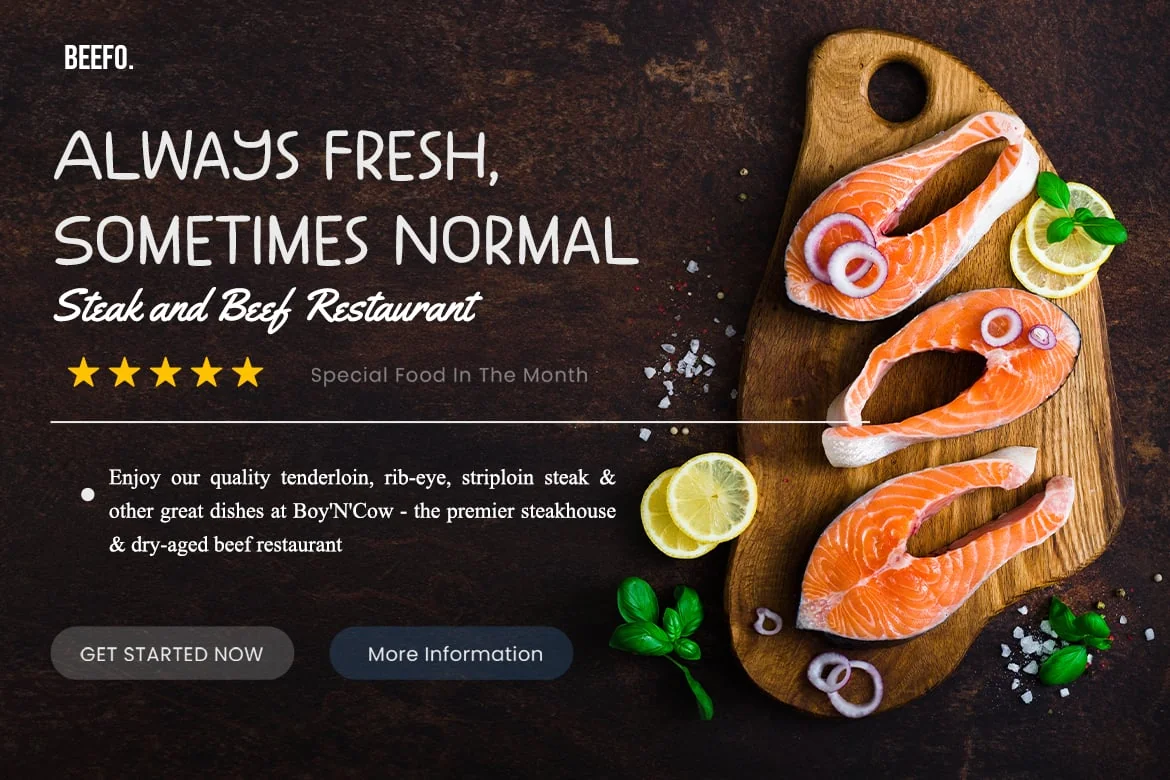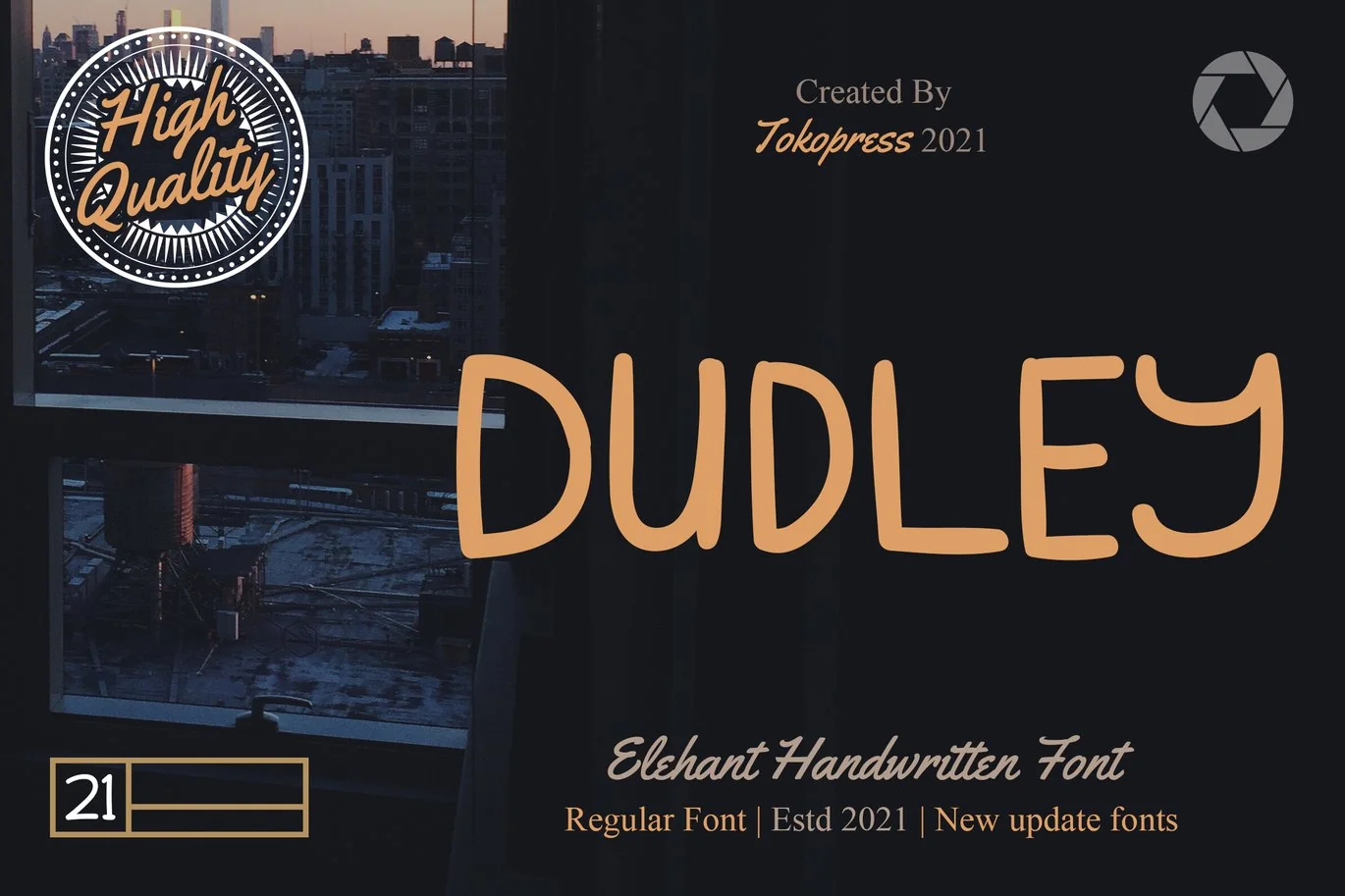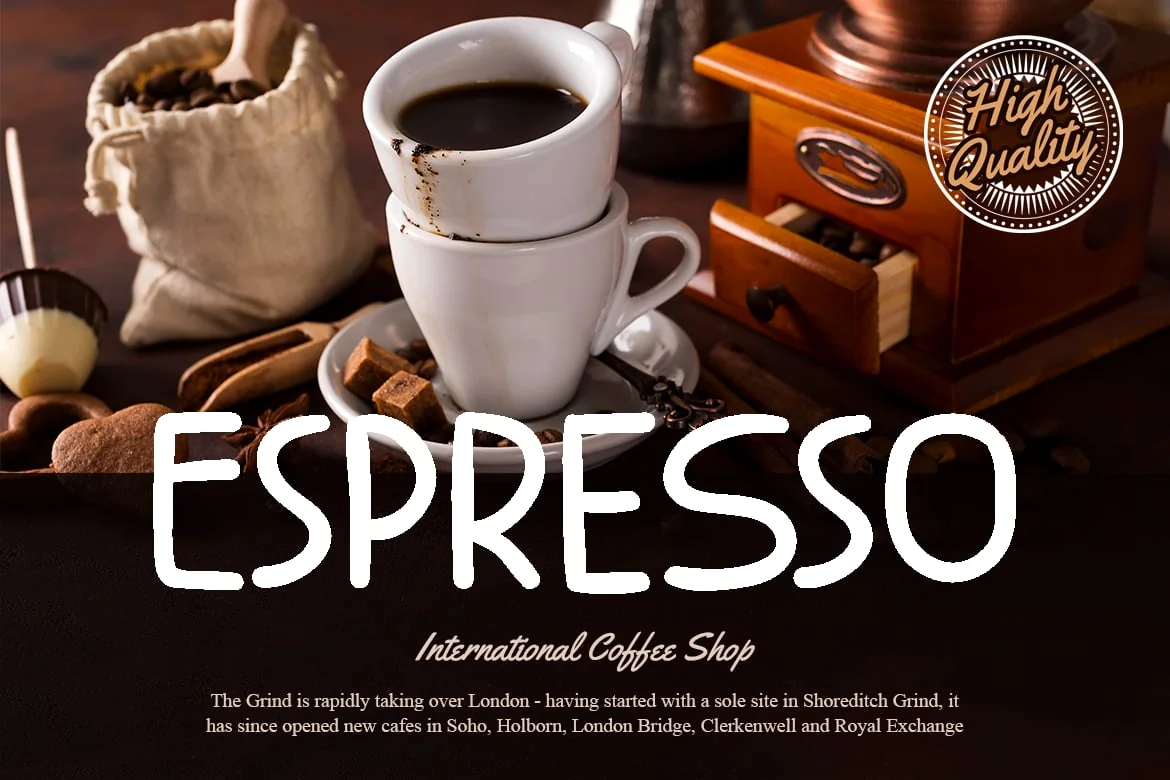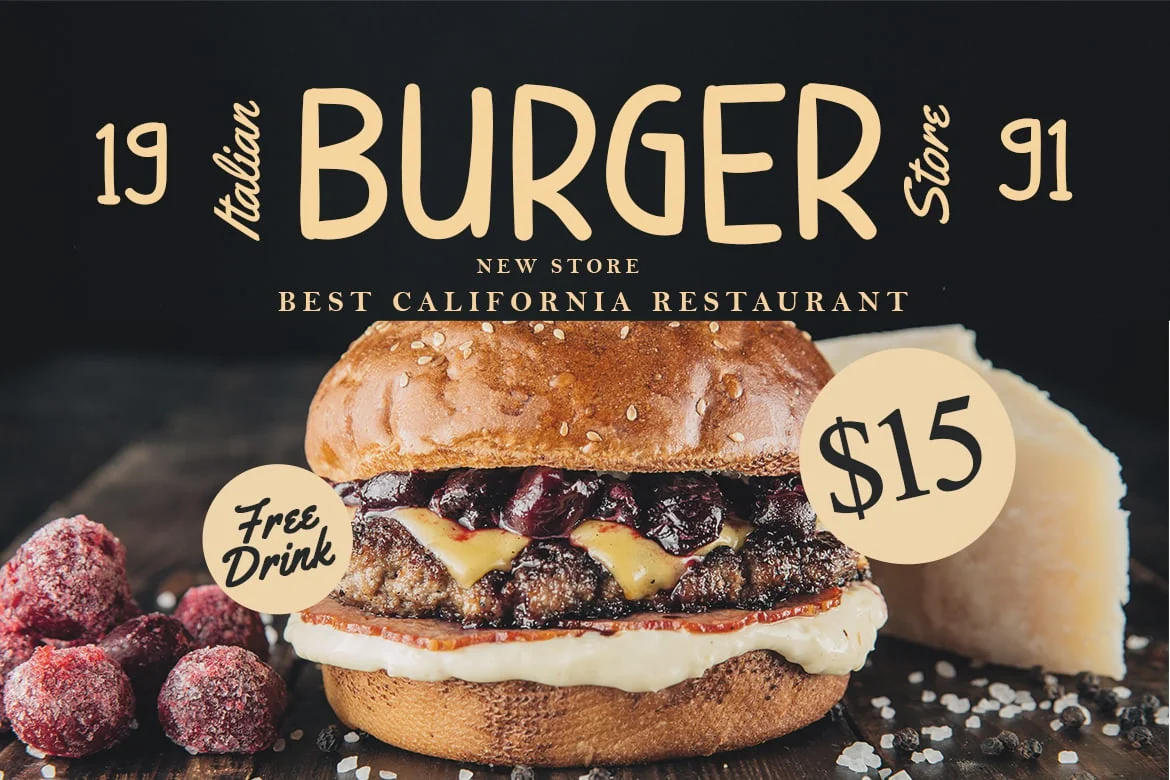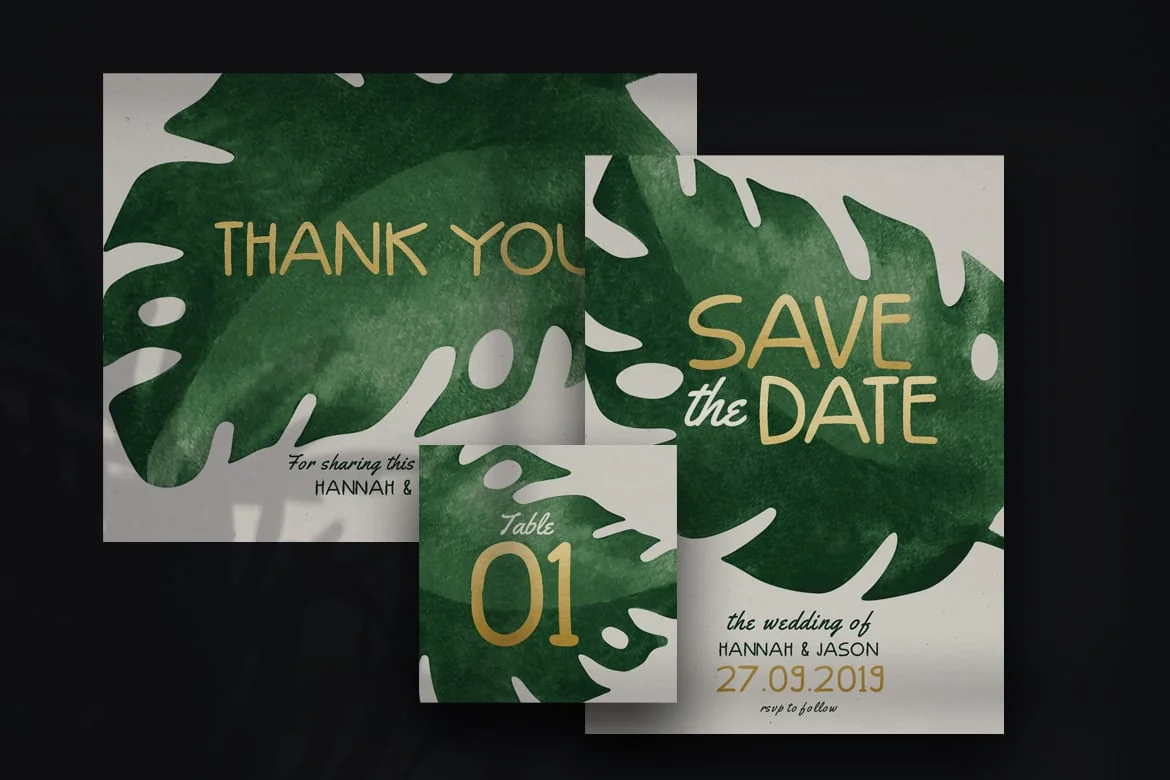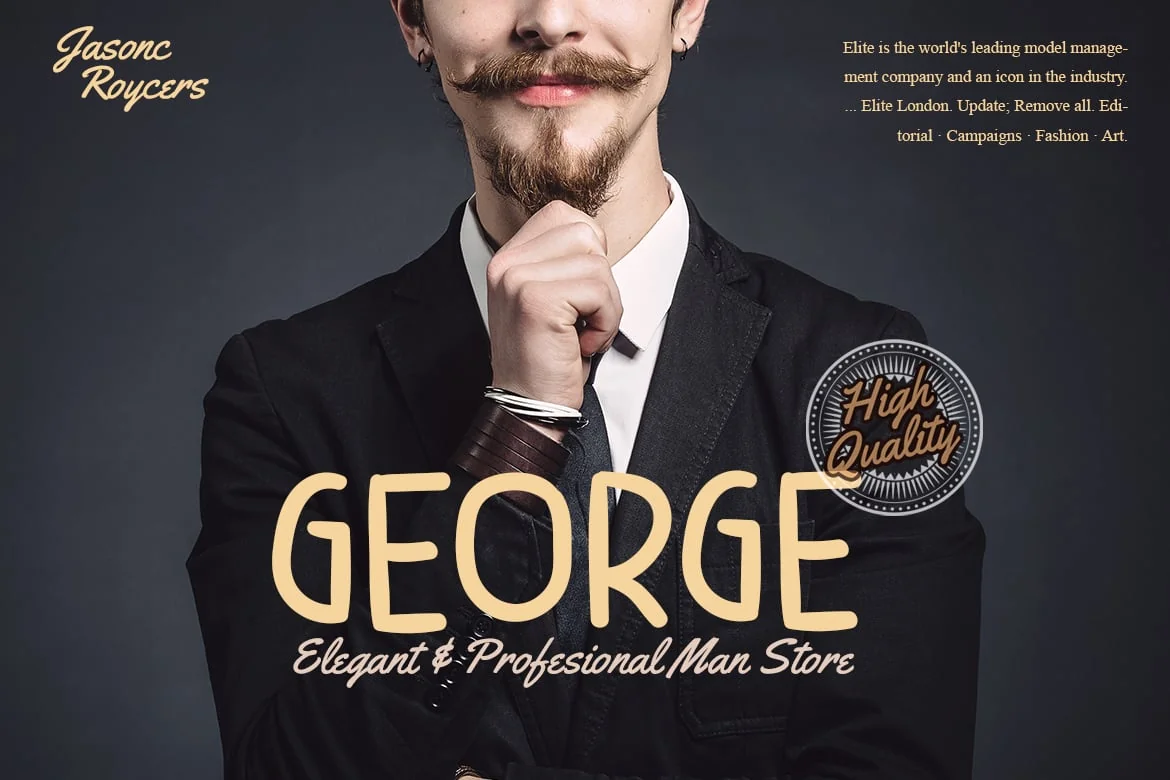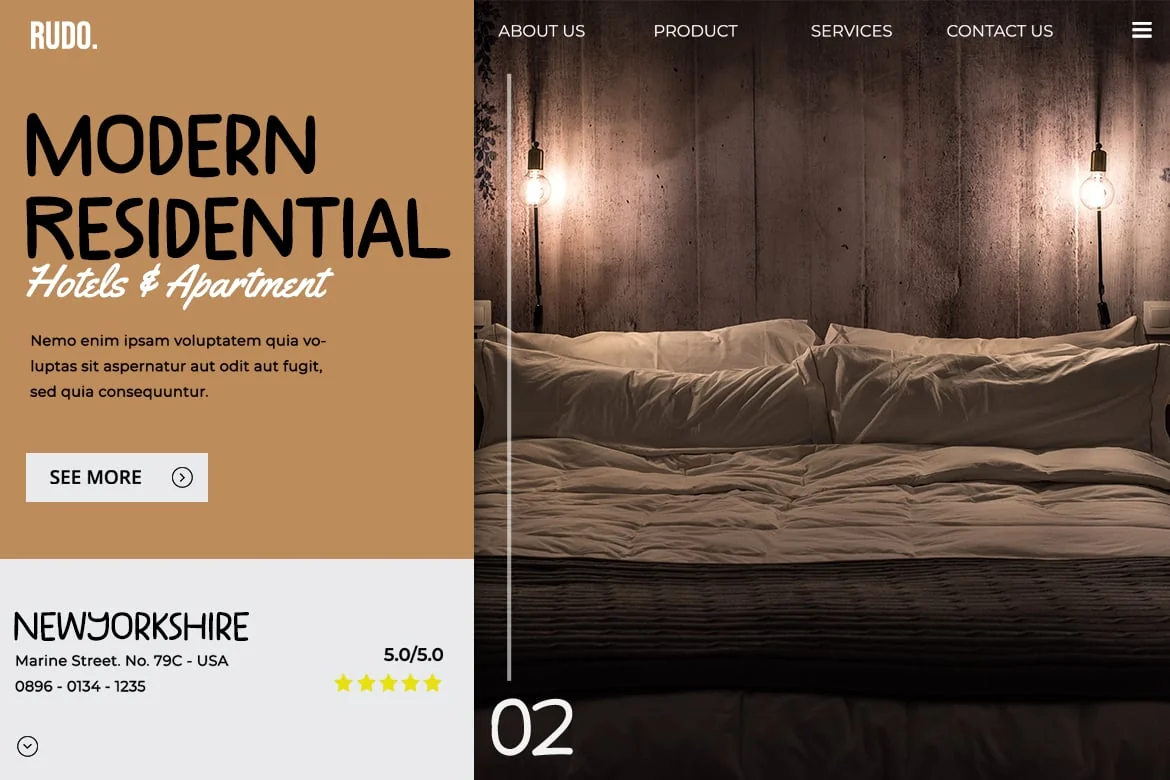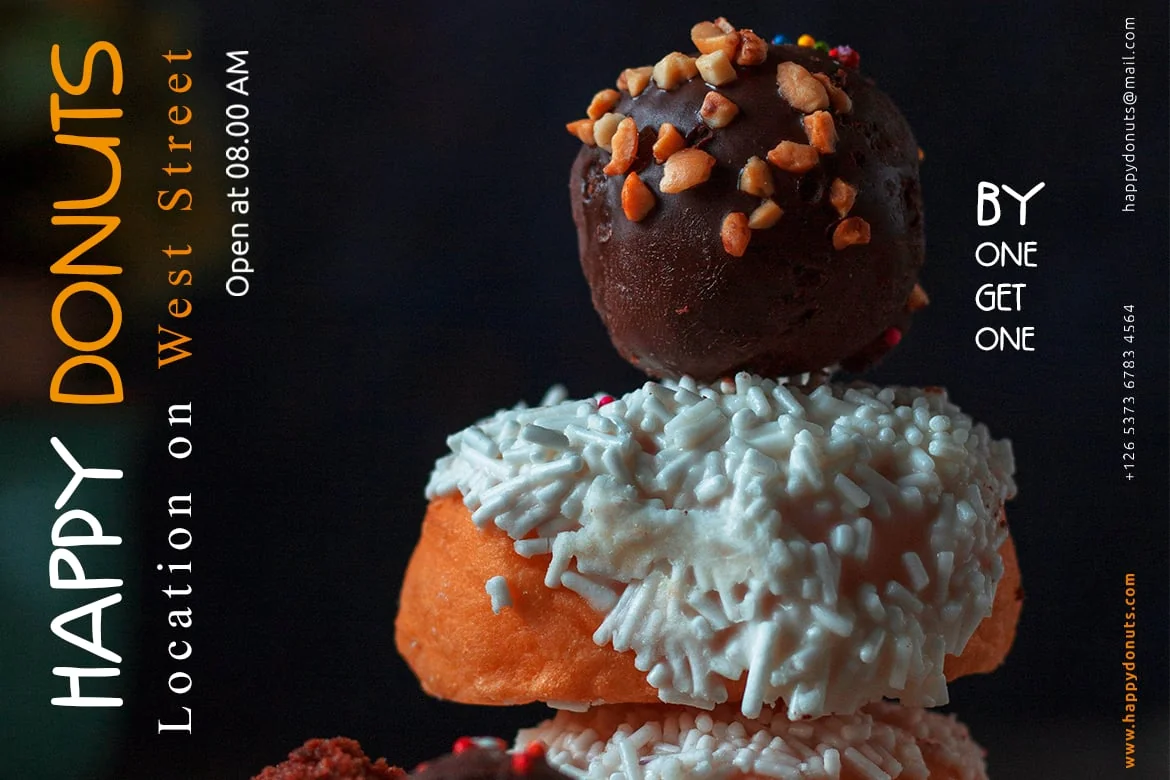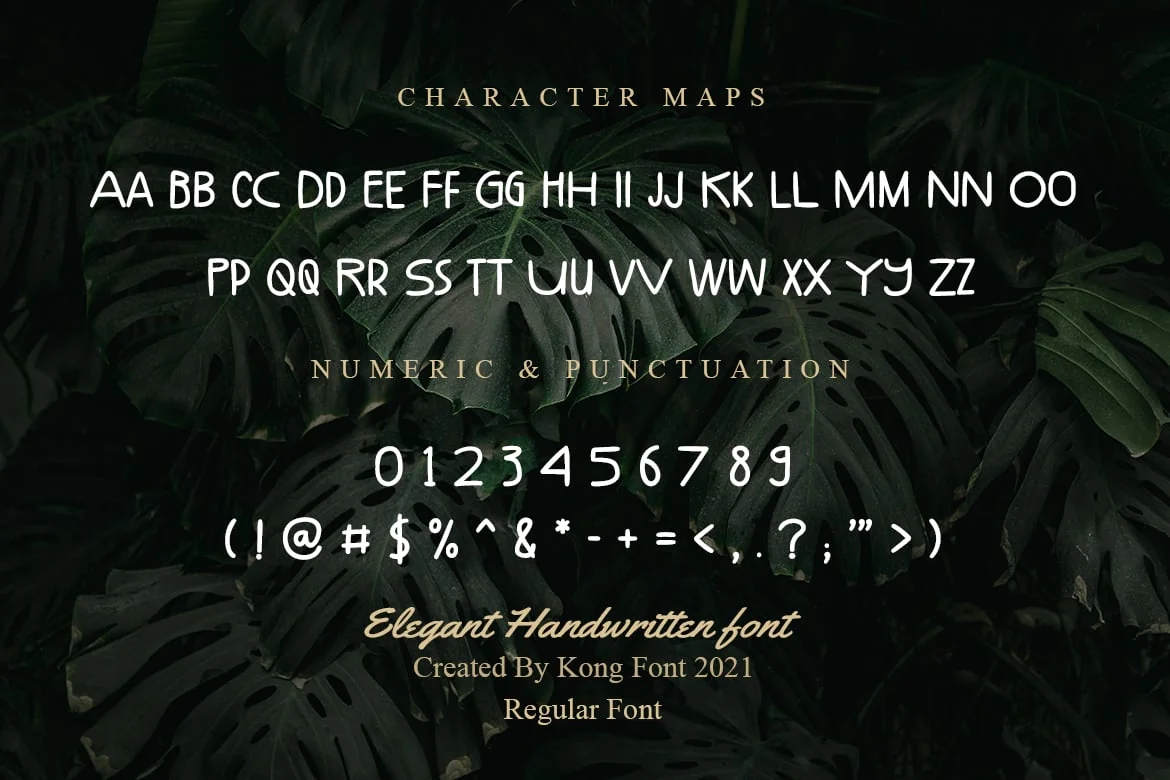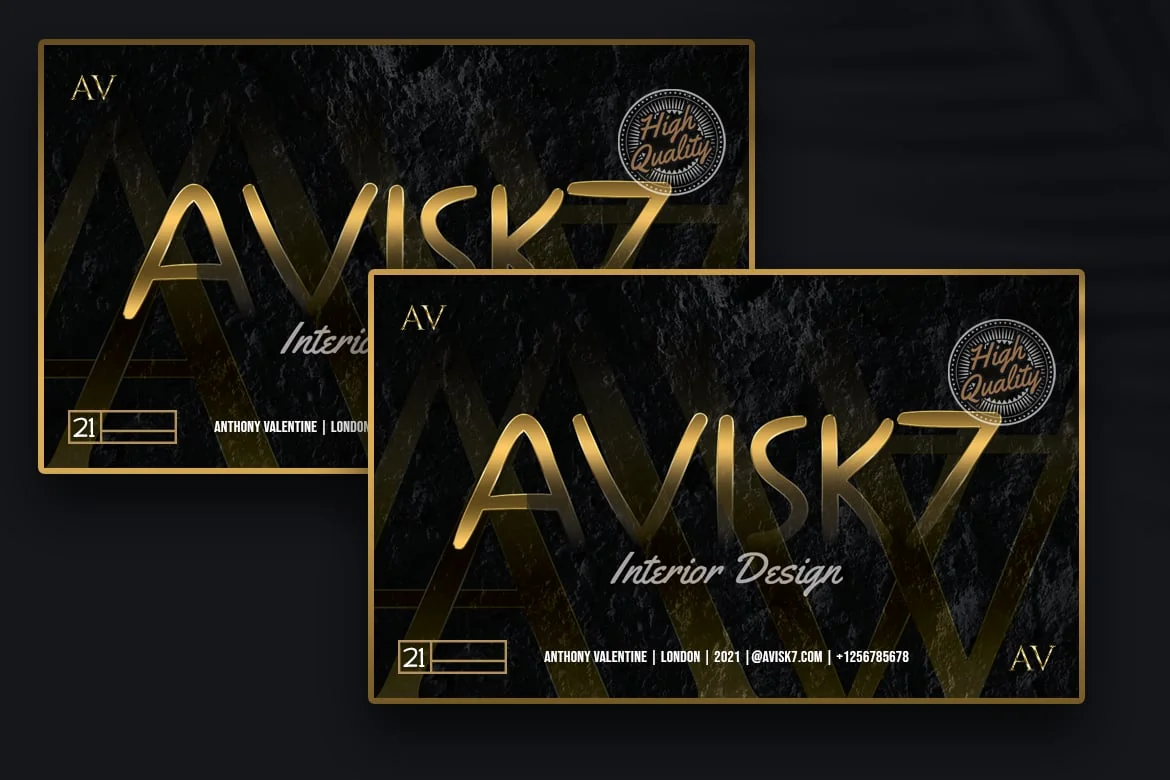
DUDLEY – Classy handwriting font
Dudley – Elegant handwriting font
It’s an all caps handwriting font that will give a touch of elegant in handwriting style. Give some human touch in all that robotic society.
Suit perfectly for Girl/ Woman/ Elegant segmented magazine, poster, movie title, travel and leisure poster, youtube covers, youtube thumbnails, social media page covers and so on…